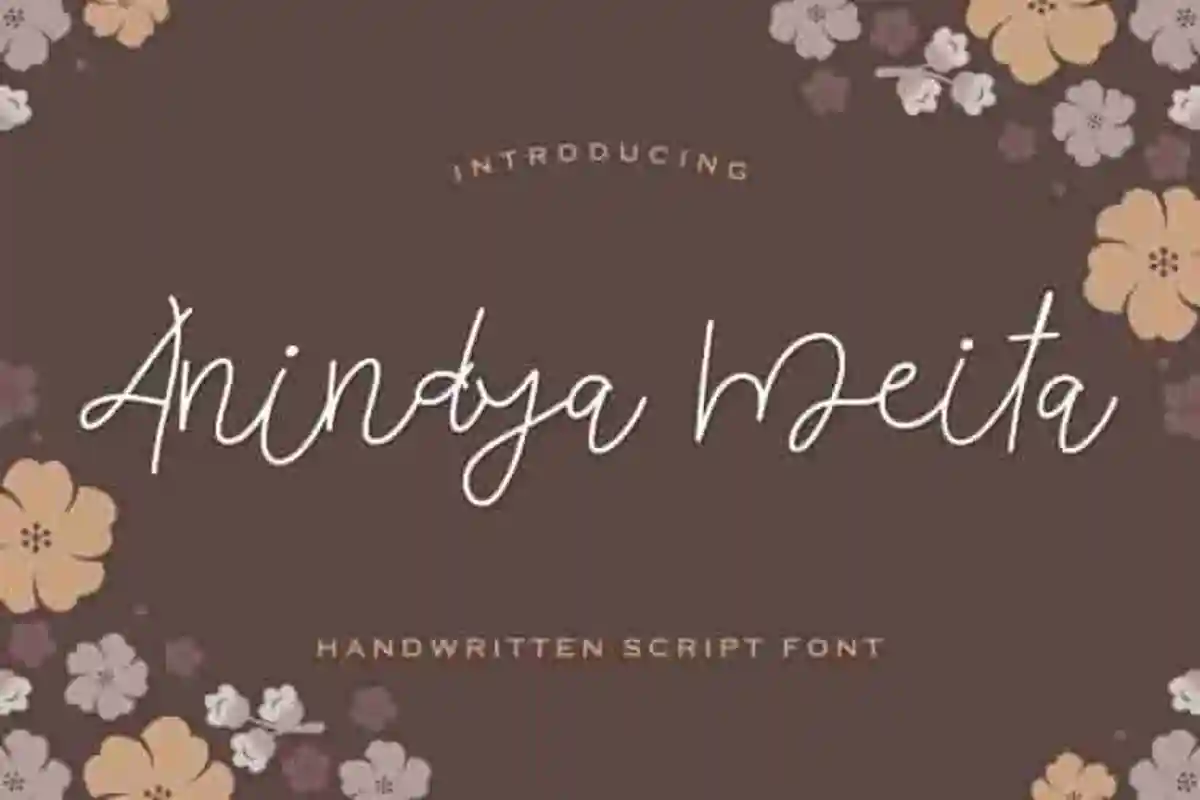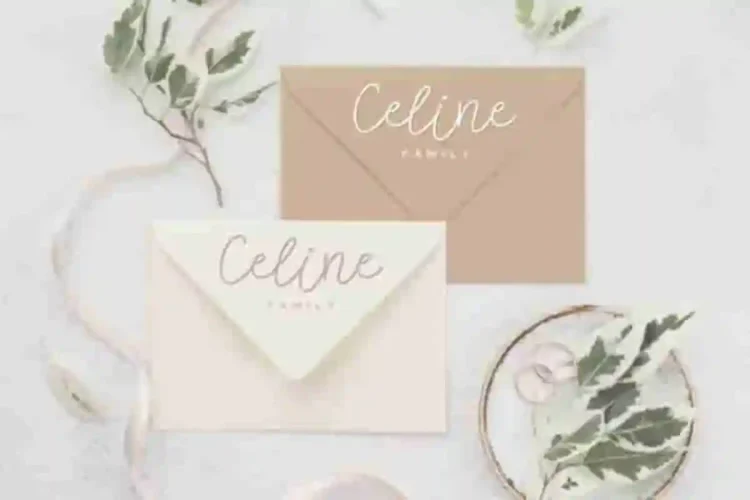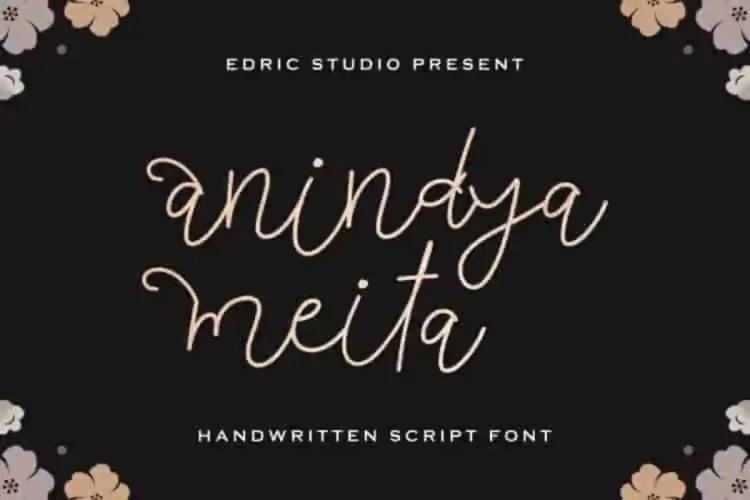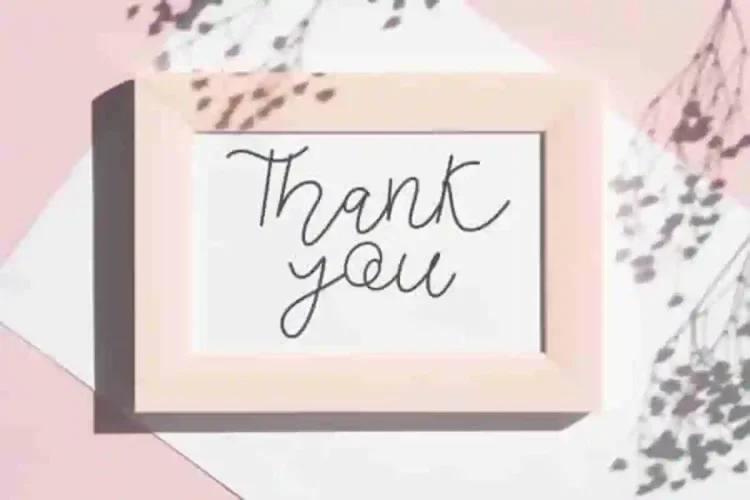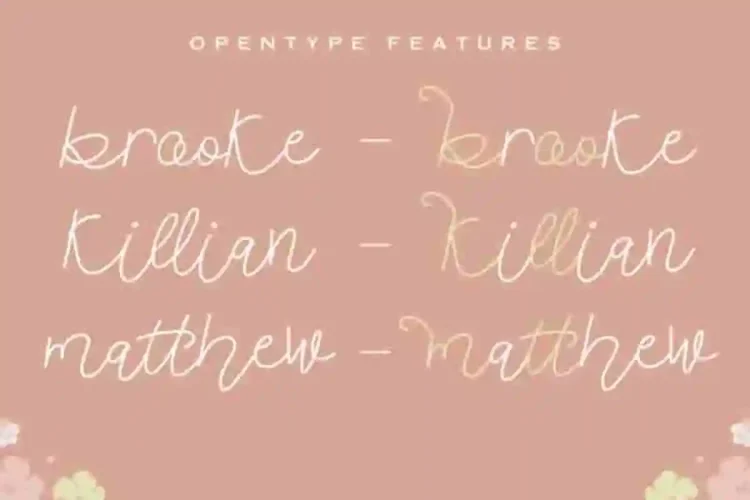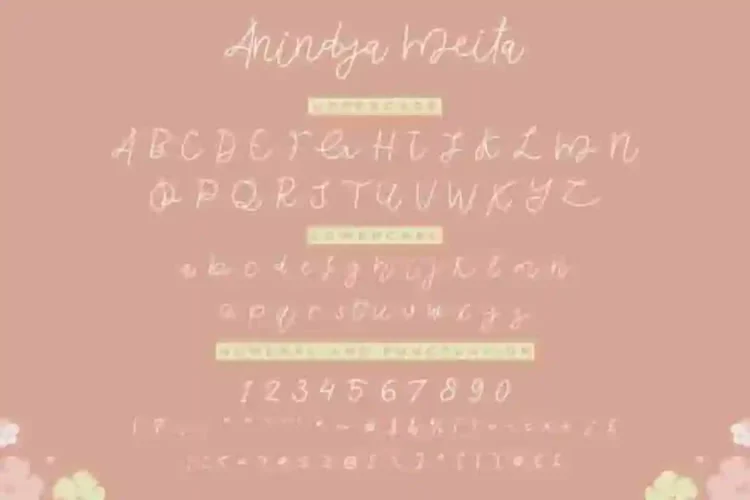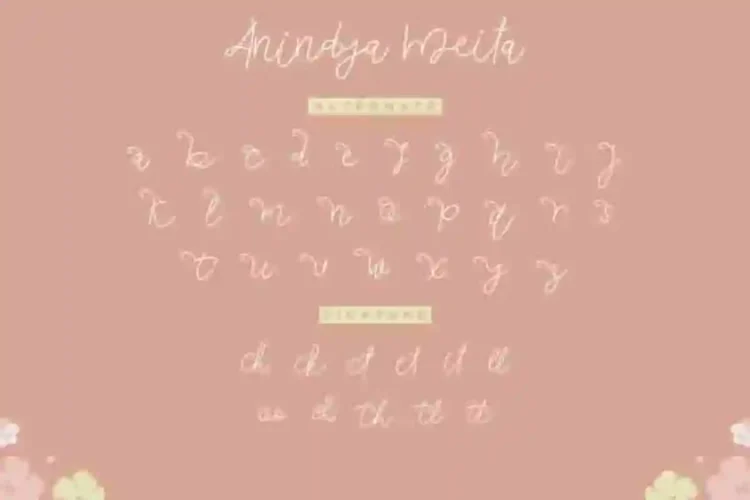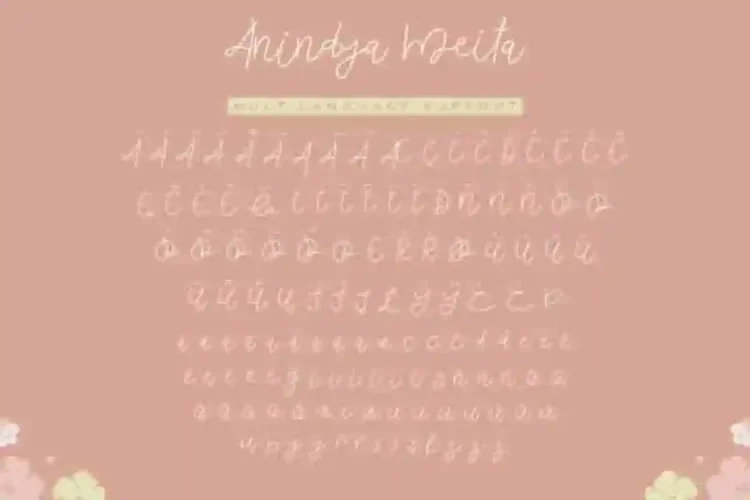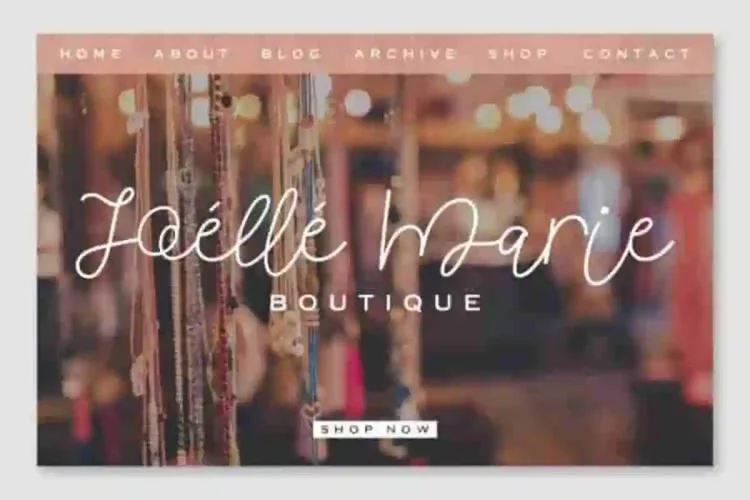
Anindya Meita Handwritten Font
Introducing our latest font  : Anindya Meita Font
This is a handwriting script font, handcrafted from our Studio here in, Indonesia. The artists/designers of this beautiful tyeface is Yasri and Sarah Suci.
Anindya Meita Font is an exclusive handwritten script typeface with one line monoline style. This font has a stunning characters set, perfectly managed with well spaced and kerning. The theme style of this font will elegant, luxury, chic, gold, cute, stylish, sophisticated and classic pen calligraphic style.
Anindya Meita Font will be great for any projects including : branding, logo, stationery, business card, signage, flyer, brochure etc. Almost all industries will be match for this typeface: wedding, events, real estate, architect, law firm, florist, gardening, makeup artist, travel, hotel, musician etc